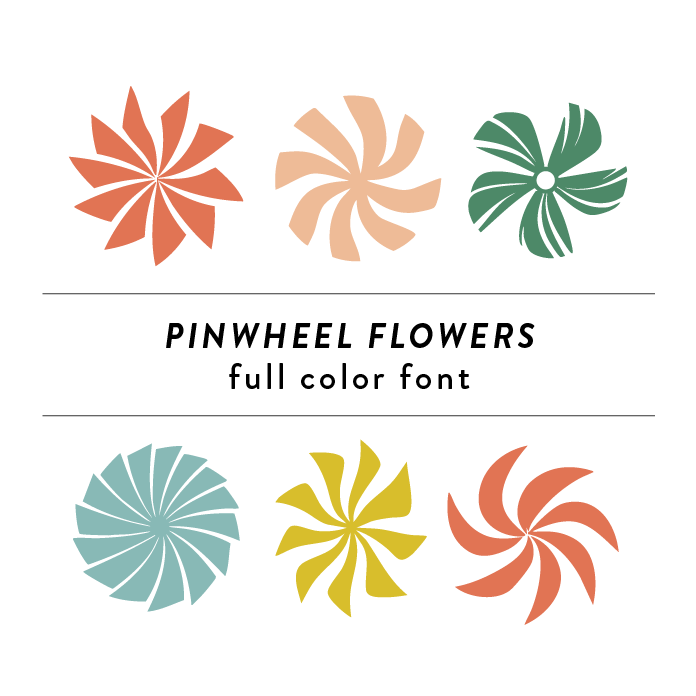
Pinwheel Flowers Full Color Font is a vibrant and playful font design inspired by summer blooms. Featuring intricate floral patterns and bright hues, this font adds a whimsical touch to any project. Perfect for craft projects, invitations, and branding materials, this font is sure to make a statement with its unique and eye-catching design. This font is a OTF craft font that will appear in color only when used with the silhouette software.